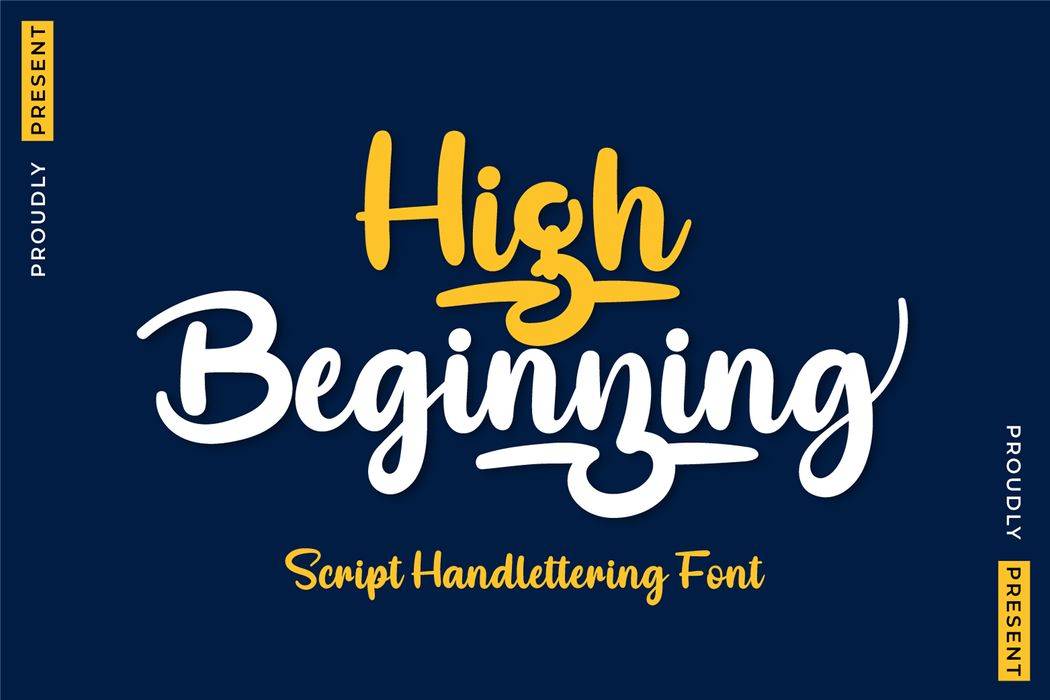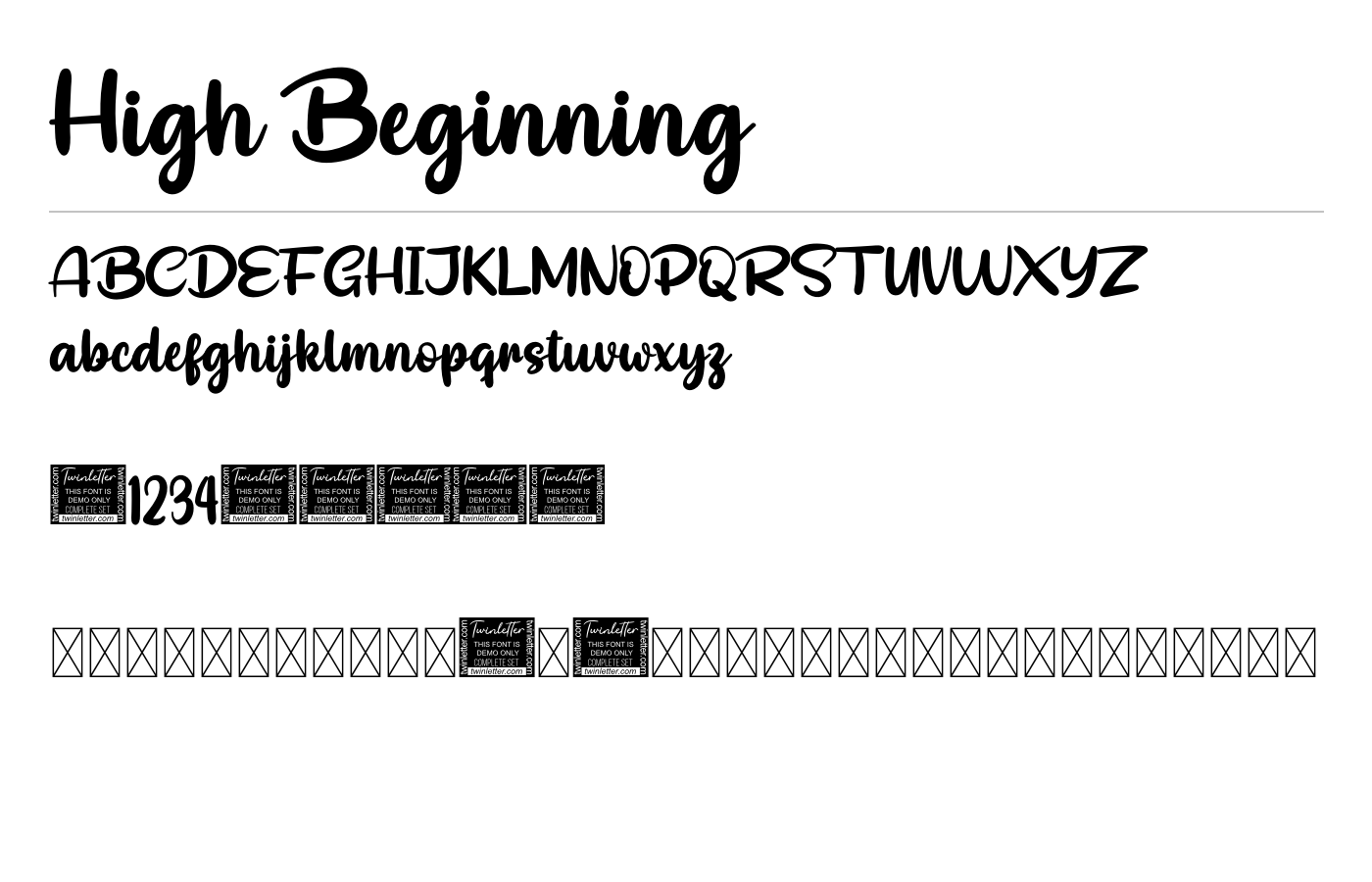
High Beginning is a playful and friendly script font with a smooth, rounded stroke that gives it a casual and approachable feel. Its medium weight and moderate contrast make it highly legible, while the lively letterforms add a sense of warmth, ideal for creative branding, informal headlines, and friendly packaging designs. This font works best where a personal, inviting touch is needed to engage audiences with charm and simplicity.
High Beginning Font
About High Beginning Font
| Font family | High Beginning Font |